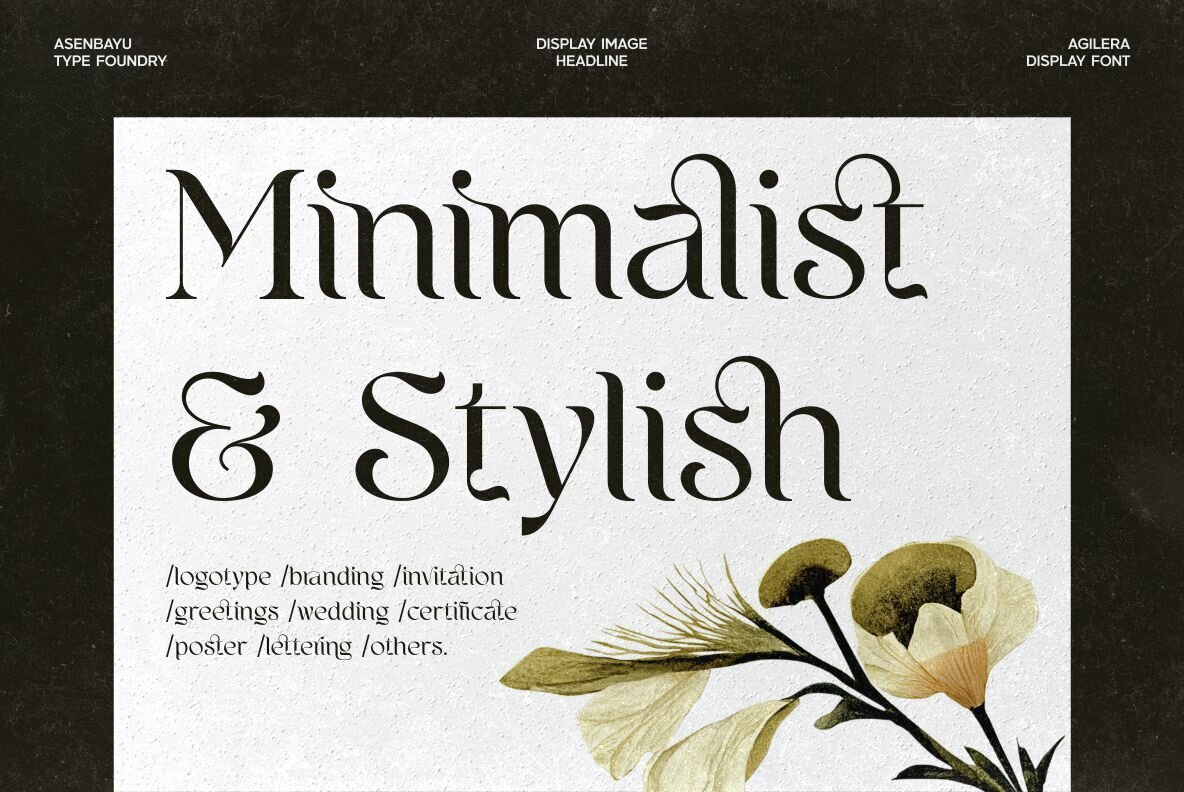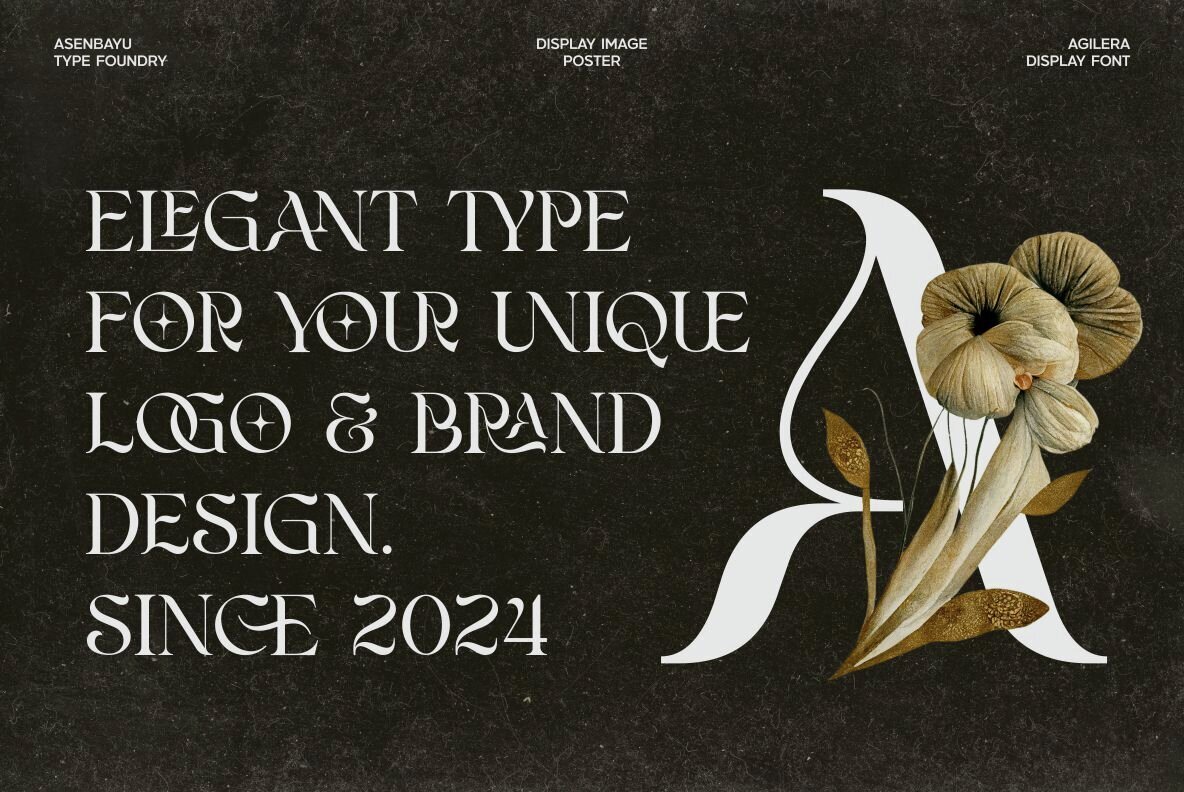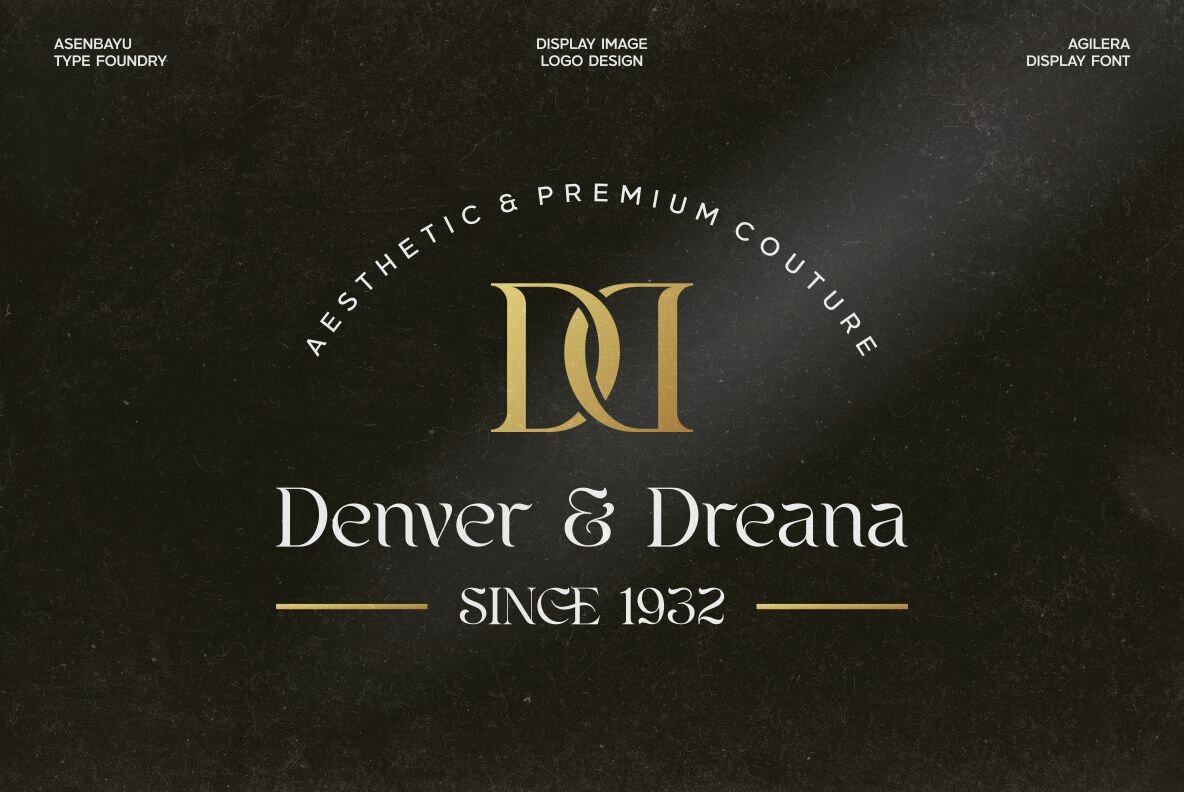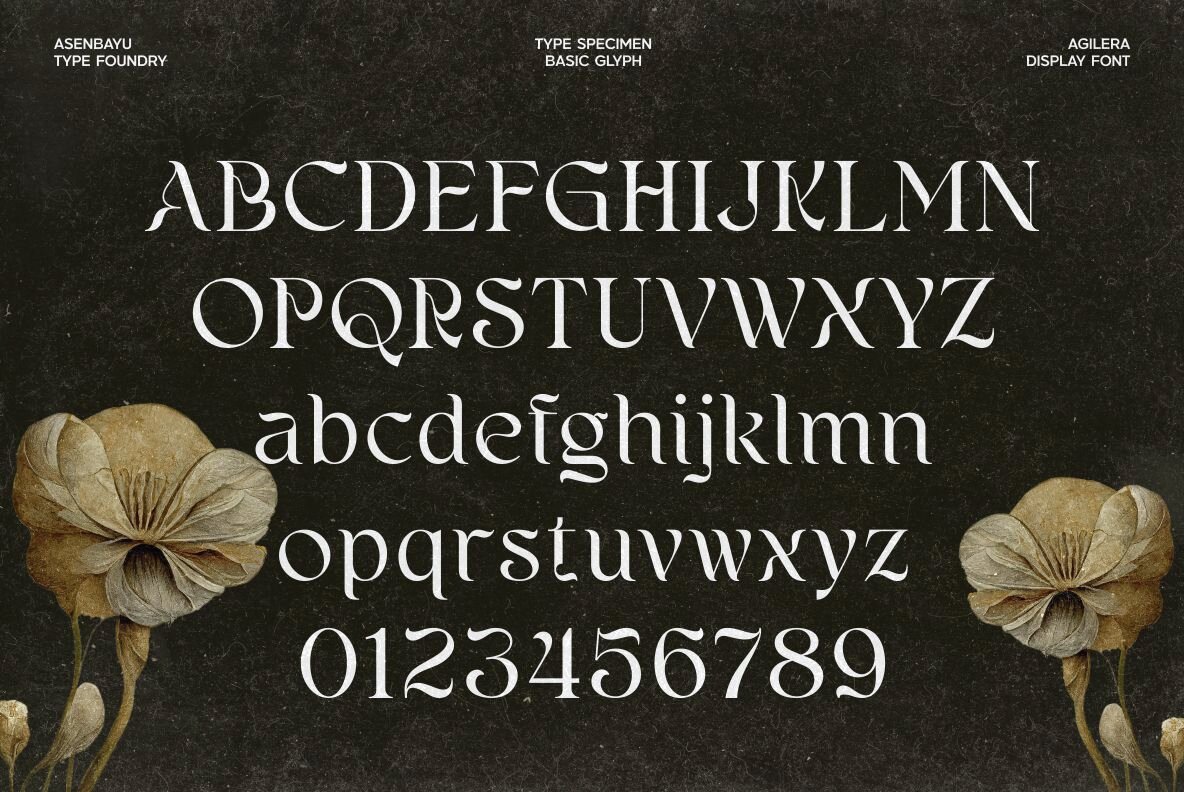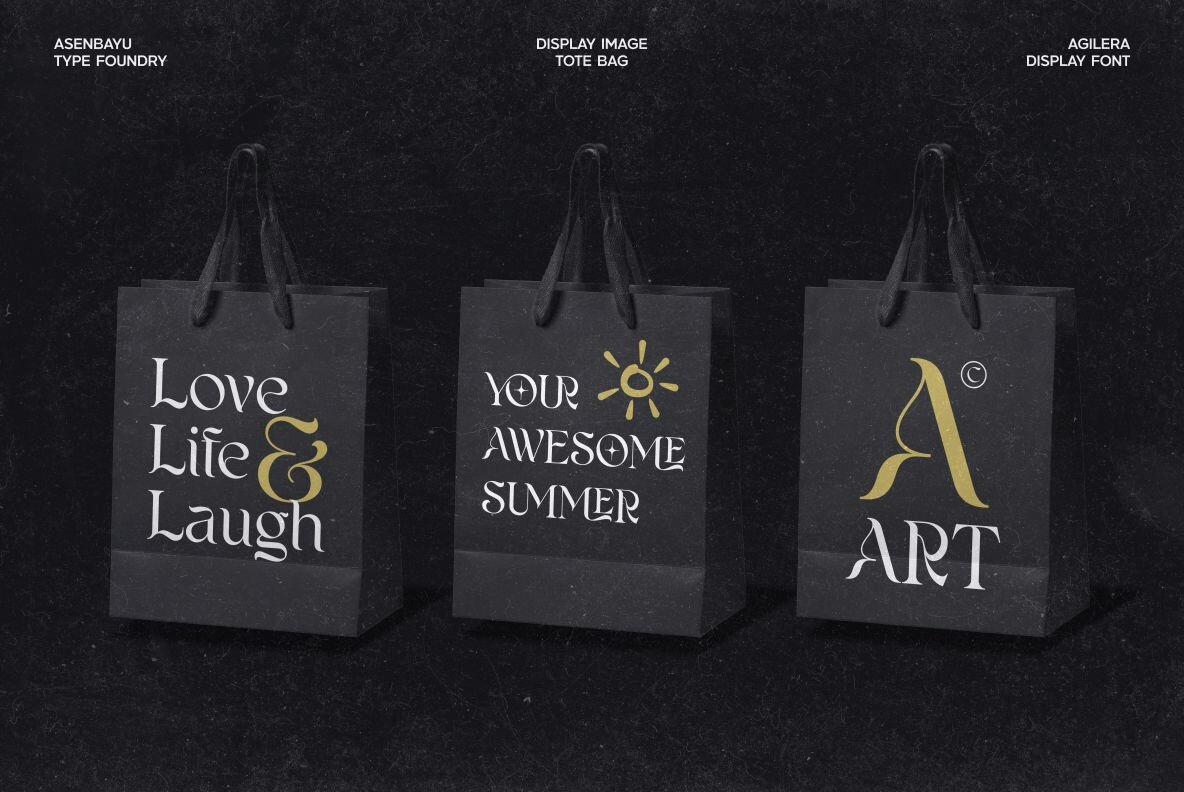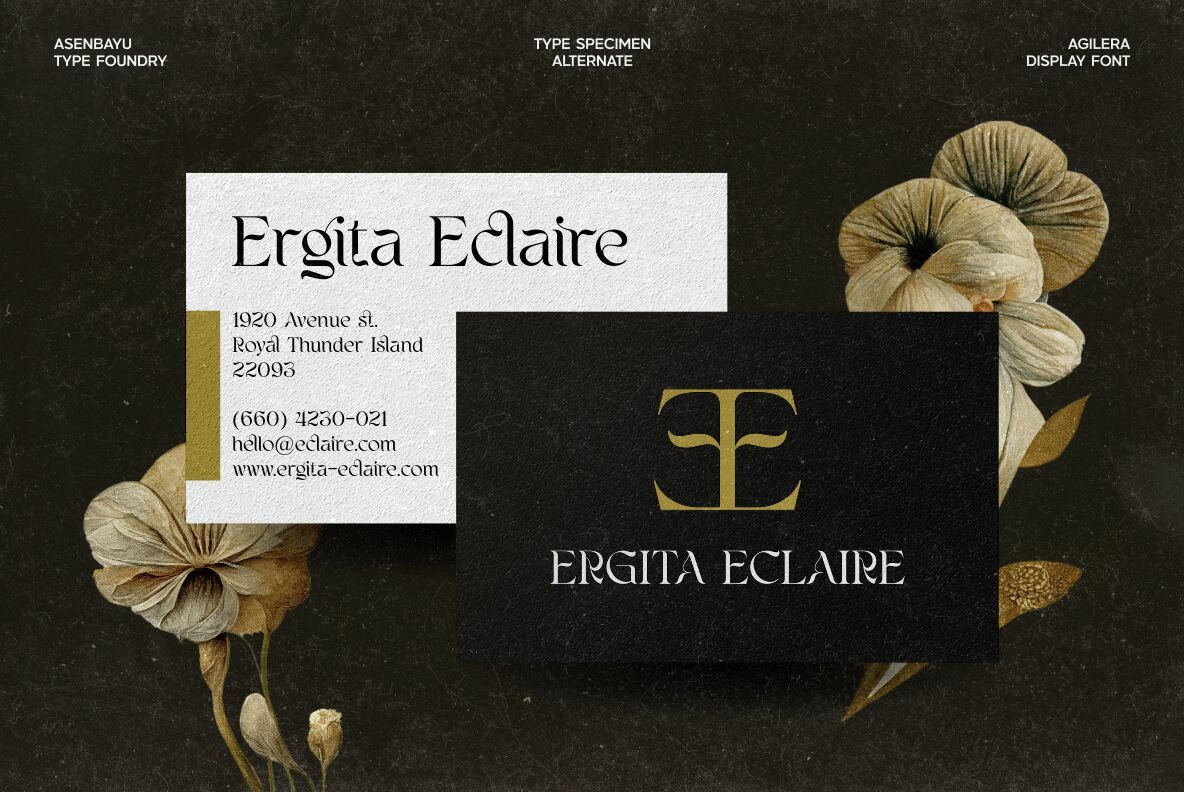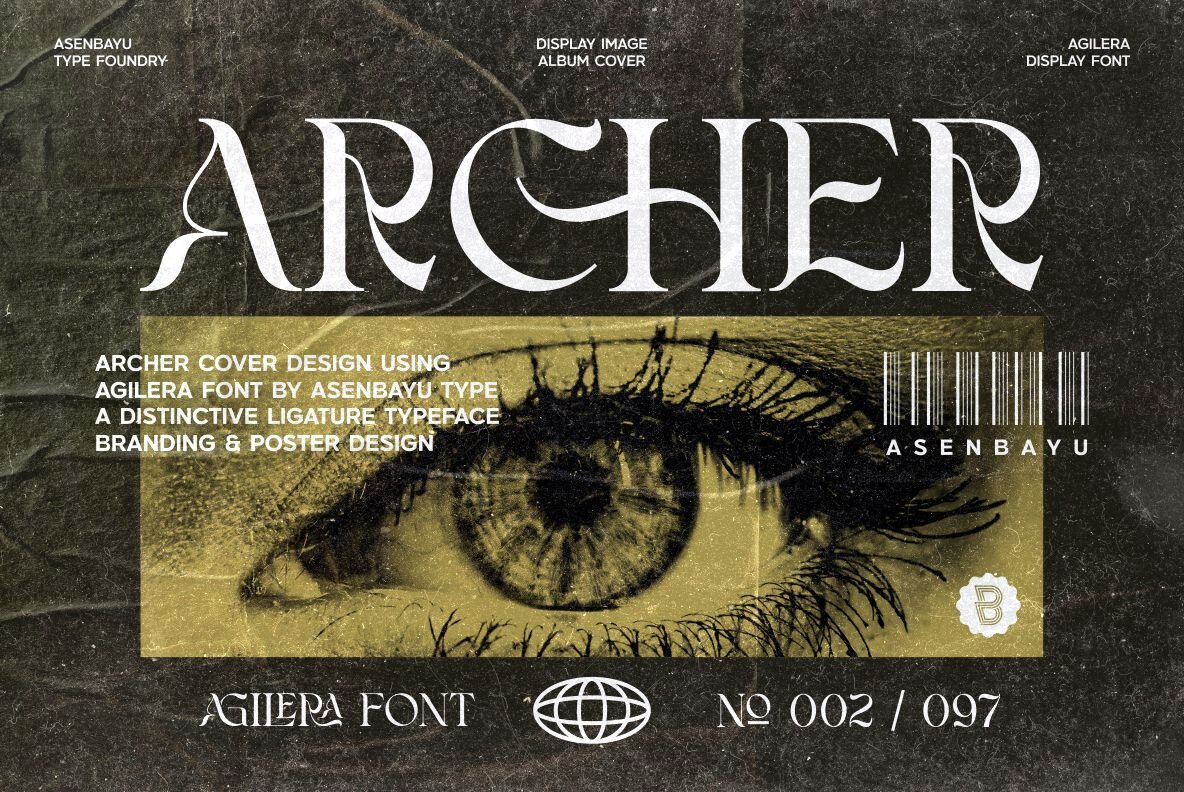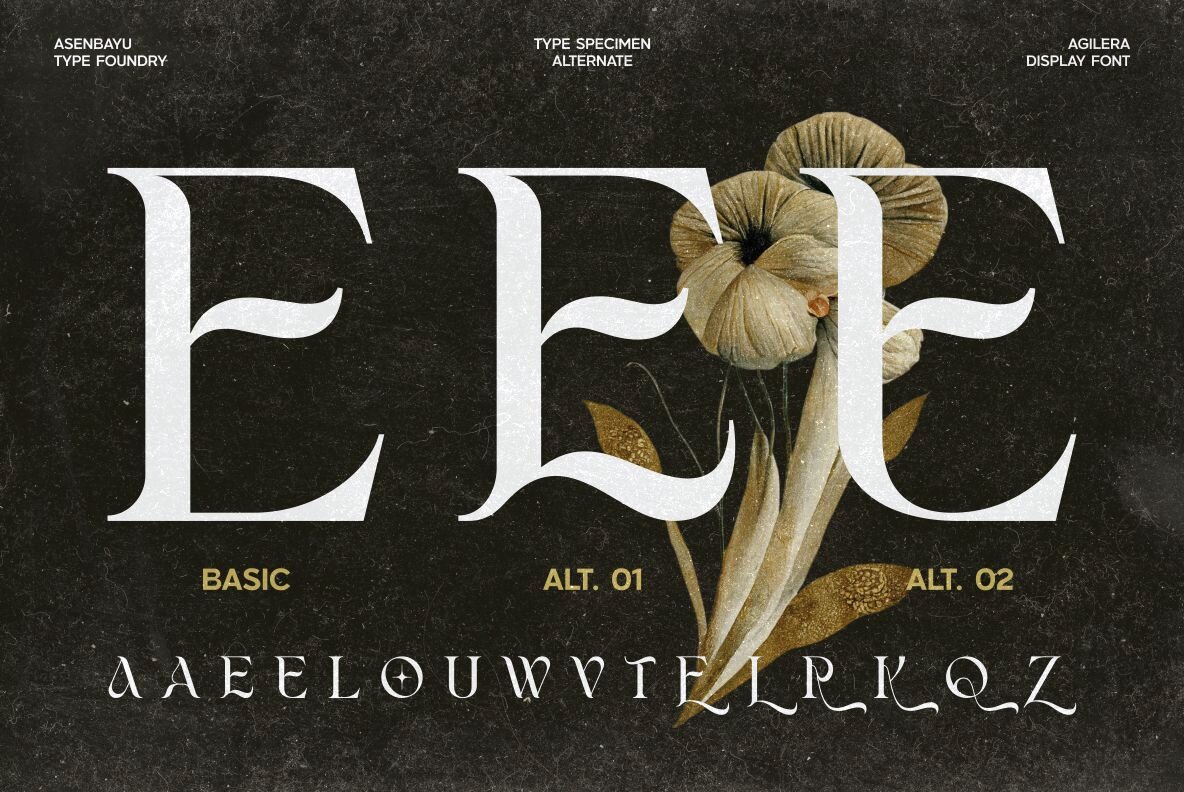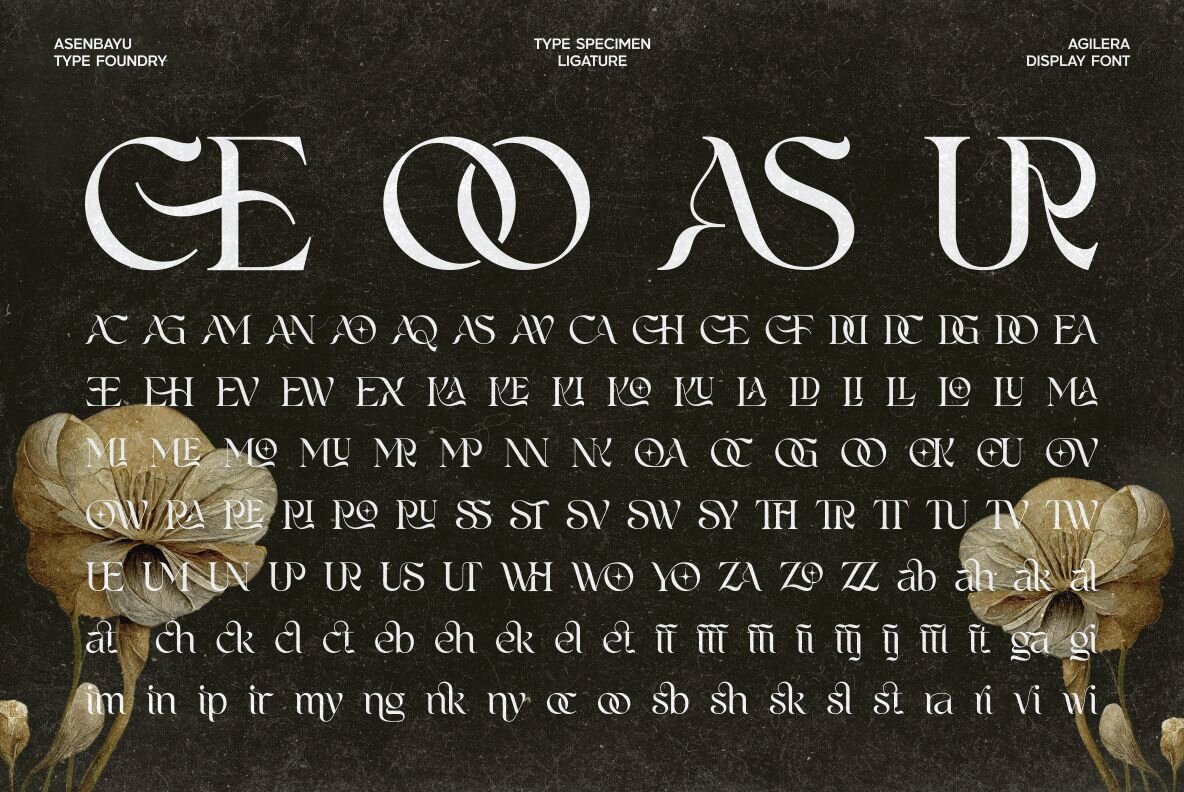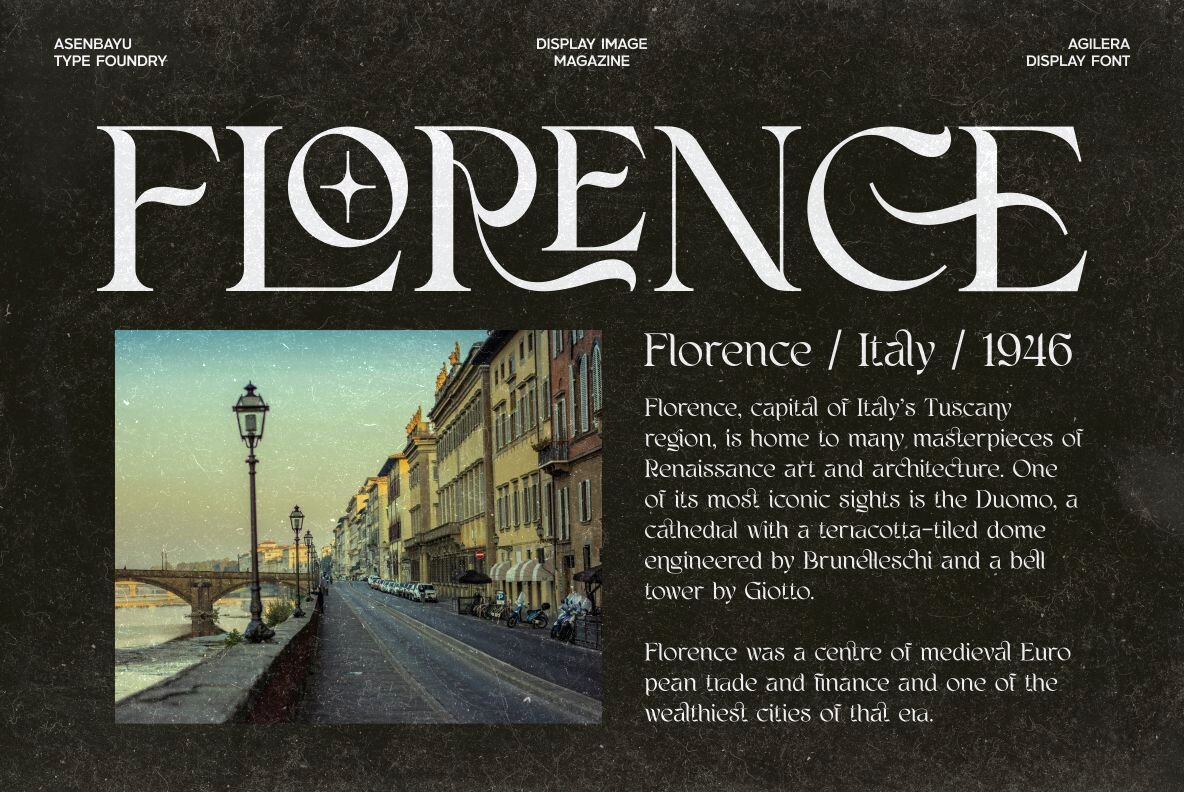
Agilera Font
Agilera Regular
Agilera is a sophisticated ligature font inspired by the Art Nouveau style, characterized by its flowing, organic lines and curves. The design features high contrast between thick and thin strokes, contributing to its dramatic and striking visual appeal. Ideal for trendy packaging label designs, distinctive logos, branding, and fashion projects, Agilera adds a minimalist yet stylish impression to your work.
Key features of Agilera include standard glyphs, stylistic alternates, ligatures, symbols, punctuation, and support for multiple languages. This versatile font is perfect for creating unique and elegant designs, from posters to high-end packaging, ensuring your projects stand out with a touch of grace and sophistication.